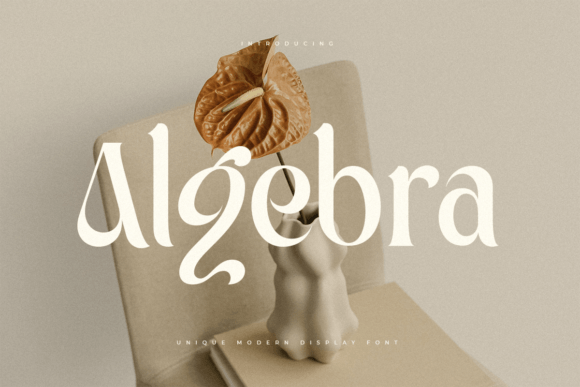
The Algebra Font: A Designer’s Dream Come True
I’ll never forget the time I was working on a wedding invitation project, and my client asked for a font that was both elegant and bold. I scoured the internet, tried out countless fonts, but nothing seemed quite right. That was until I stumbled upon the Algebra Font. Its incredibly versatile style won me over, and I’ve been hooked ever since. In this article, I’ll share my love for this beautiful serif font, its features, and how to make the most of it in your designs.
- ✨ Elegant and bold serif design
- ✅ Incredibly versatile style suitable for various projects
- 💕 Perfect for wedding invitations, stationery art, and social media posts
- 🎨 Great for designers, crafters, and creative hobbyists
While the Algebra Font is amazing, there are a few things to keep in mind:
- ⚠️ Some users might find the font a bit too bold for certain projects
- 🤔 Limited availability of certain OpenType features in certain software
- Experiment with OpenType features, such as stylistic alternates and glyphs, to add visual interest
- Explore the font’s OpenType features, such as ligatures and swashes, to add elegance to your design
- Use the font’s built-in stylistic alternates to add visual interest to your document
The Story Behind Algebra Font
Algebra Font was designed with elegance and versatility in mind. Its creator aimed to craft a font that would be both beautiful and functional, suitable for a wide range of design projects. While the font’s exact backstory might be shrouded in mystery, its design is undoubtedly inspired by classic serif fonts and a passion for typography.
Q: Is Algebra Font suitable for body text?
A: While Algebra Font is beautiful, it’s primarily designed for headlines and titles. For body text, you might prefer a font with better readability, such as Merriweather or Playfair Display.
Q: Does Algebra Font support OpenType features?
A: Yes, Algebra Font supports various OpenType features, including stylistic alternates, ligatures, and glyphs. Experiment with these features to add visual interest to your designs.